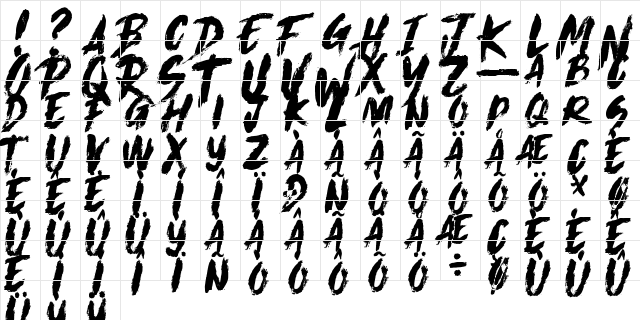
Eclipse Demo Regular
Design Context for Eclipse Demo Typeface
Eclipse Demo is a composed and adaptable typeface that performs quietly and consistently across a wide range of design contexts.